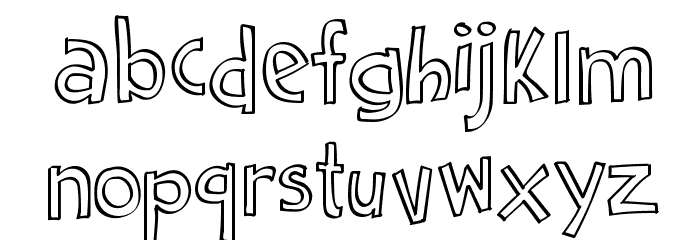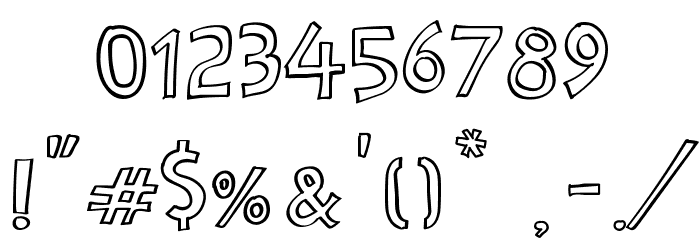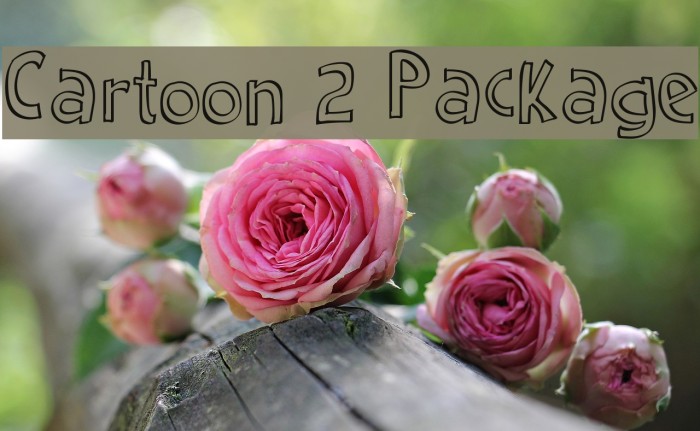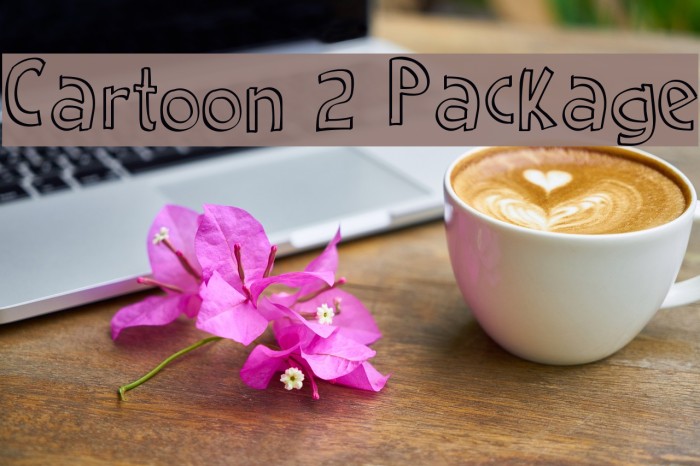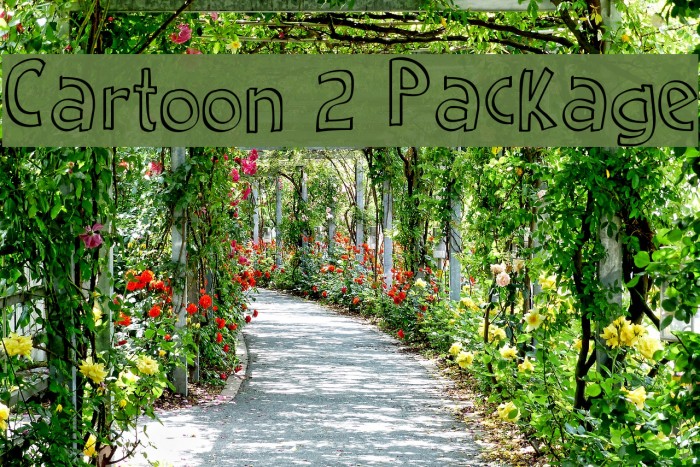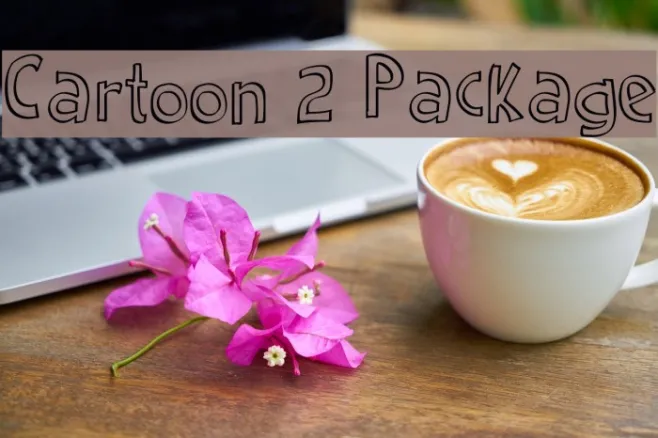
Cartoon 2 Package Font
This playful and whimsical font features bold, irregular strokes that give it a hand-drawn, cartoonish appearance. The letters are slightly uneven, adding to its charm and informal style. It captures a sense of fun and creativity, making it ideal for projects that require a lighthearted and engaging touch. The uppercase and lowercase characters maintain a consistent style, with rounded edges and a slightly exaggerated form. Numbers and special characters are designed to match the playful aesthetic, ensuring a cohesive look across all text elements.
A playful, hand-drawn font with bold, irregular strokes and a cartoonish style.
- Proposed Projects: Ideal for children's books, comic strips, playful branding, and creative posters.
- Overall Style: Playful, Whimsical, Cartoonish
- Use Case: Headlines, Posters, Branding